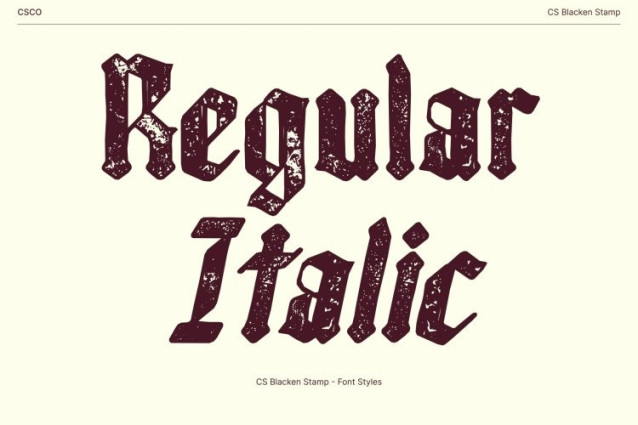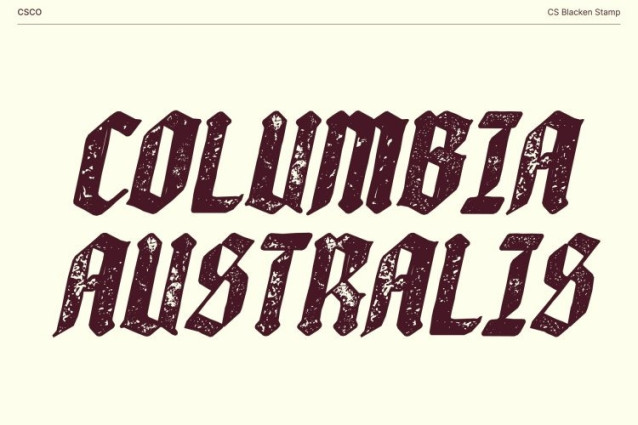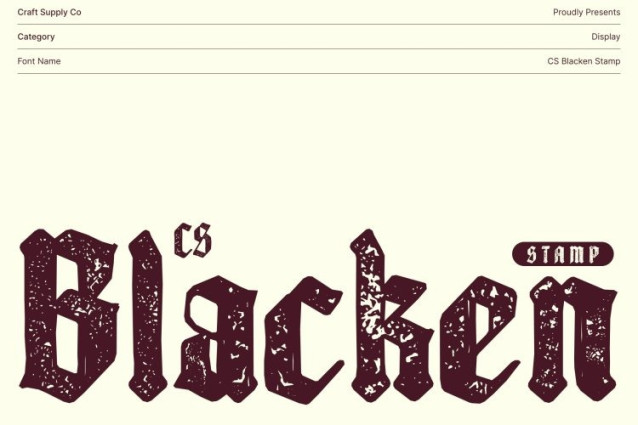
CS Blacken Stamp Font This is a distinguished Blackletter serif font that blends historical grandeur with dark, enigmatic charm. Its intricate and ornate letterforms evoke a timeless, ceremonial aura. Enhanced with a stamp effect, the font gains textured depth and aged imperfections, recalling antique manuscripts, medieval prints, and traditional stamped lettering.
Intricate and Ornate Letterforms with Vintage Texture
The bold, sharp shapes of deliver dramatic impact through elaborate detailing and strong contrast. The stamped texture enriches these ornate forms with an authentic, weathered appearance, adding depth and complexity while reinforcing the font’s historical authority and visual richness.
Classic and Traditional Aesthetic with Old-World Character
Designed for projects that demand formality and heritage, this font radiates strength, prestige, and mystique. The combination of classic Blackletter structure and a distressed stamped finish creates an imposing yet refined presence perfect for ceremonial designs, historical compositions, and powerful visual statements.
Versatile for Formal, Gothic, and Historical Projects
Whether applied to high-impact documents, historical artwork, branding, packaging, or gothic-inspired designs, delivers a commanding and distinguished tone. Its majestic letterforms, paired with vintage stamped texture, make it a versatile choice for conveying tradition, mystery, and timeless elegance.